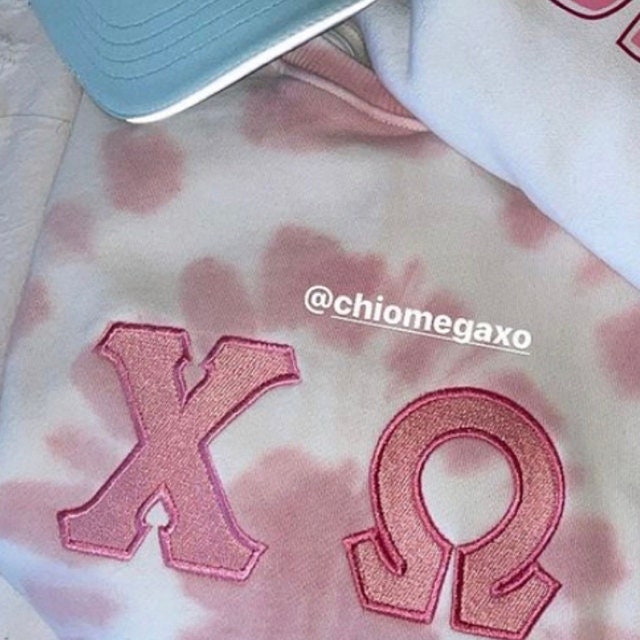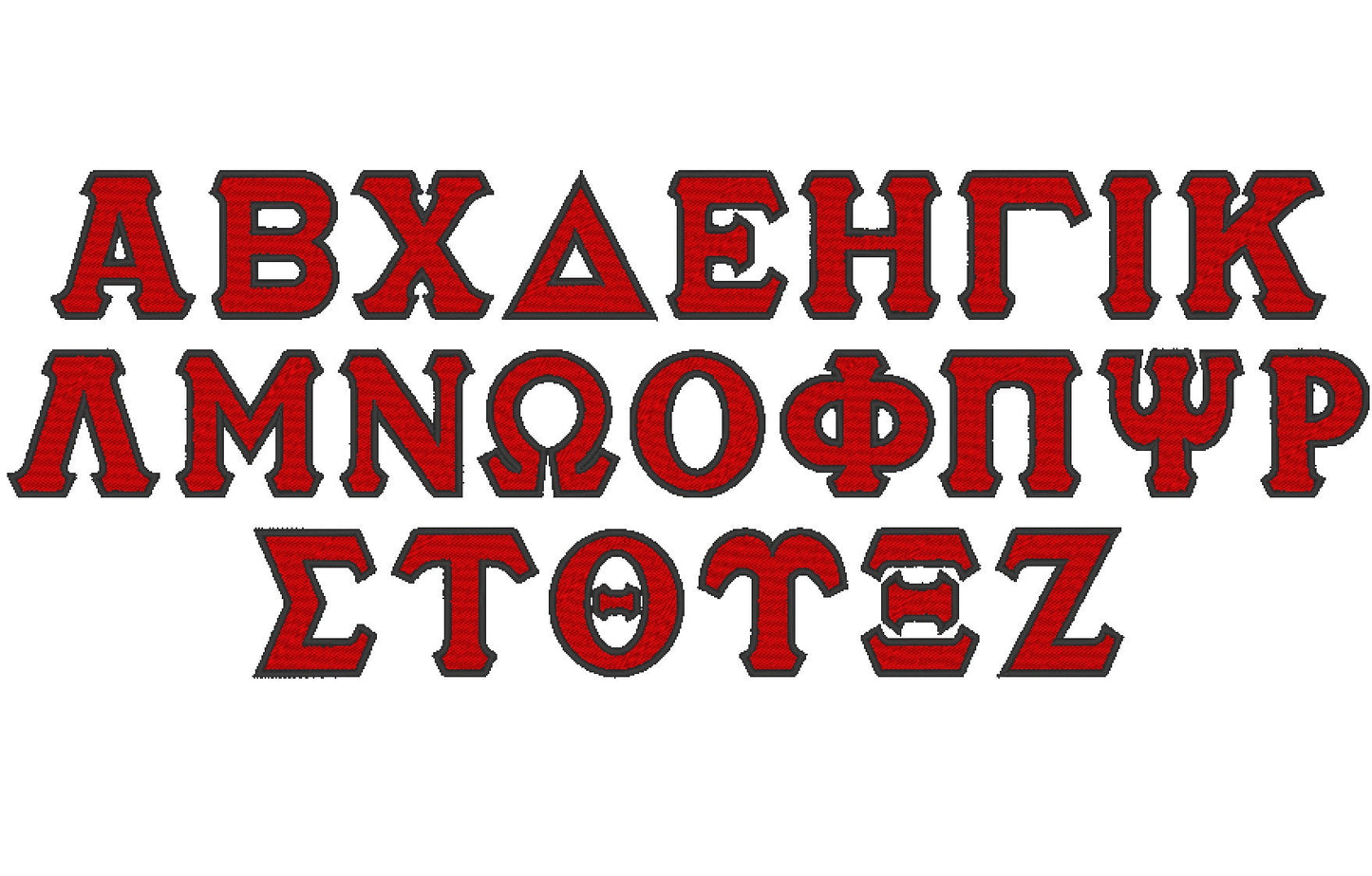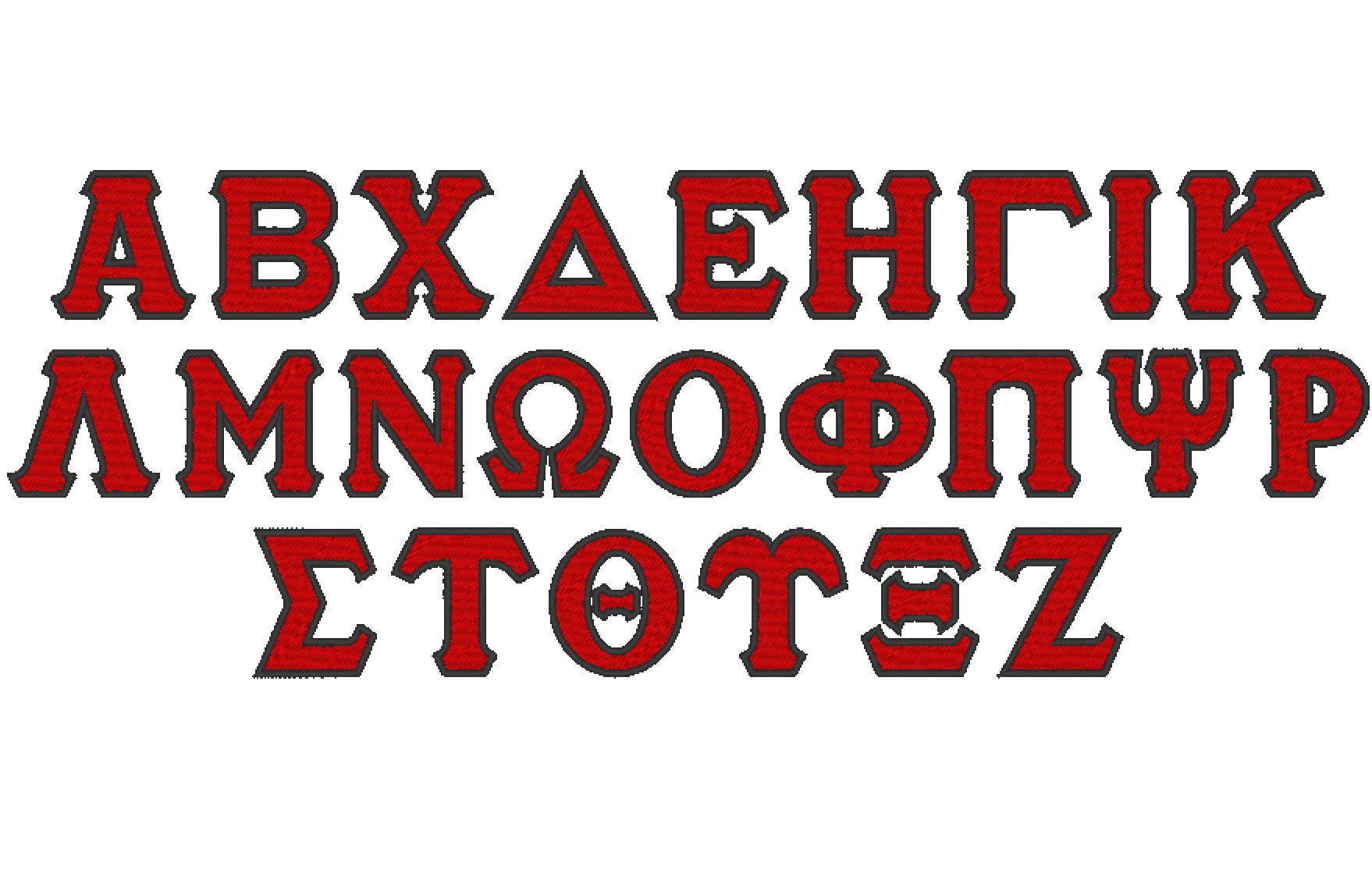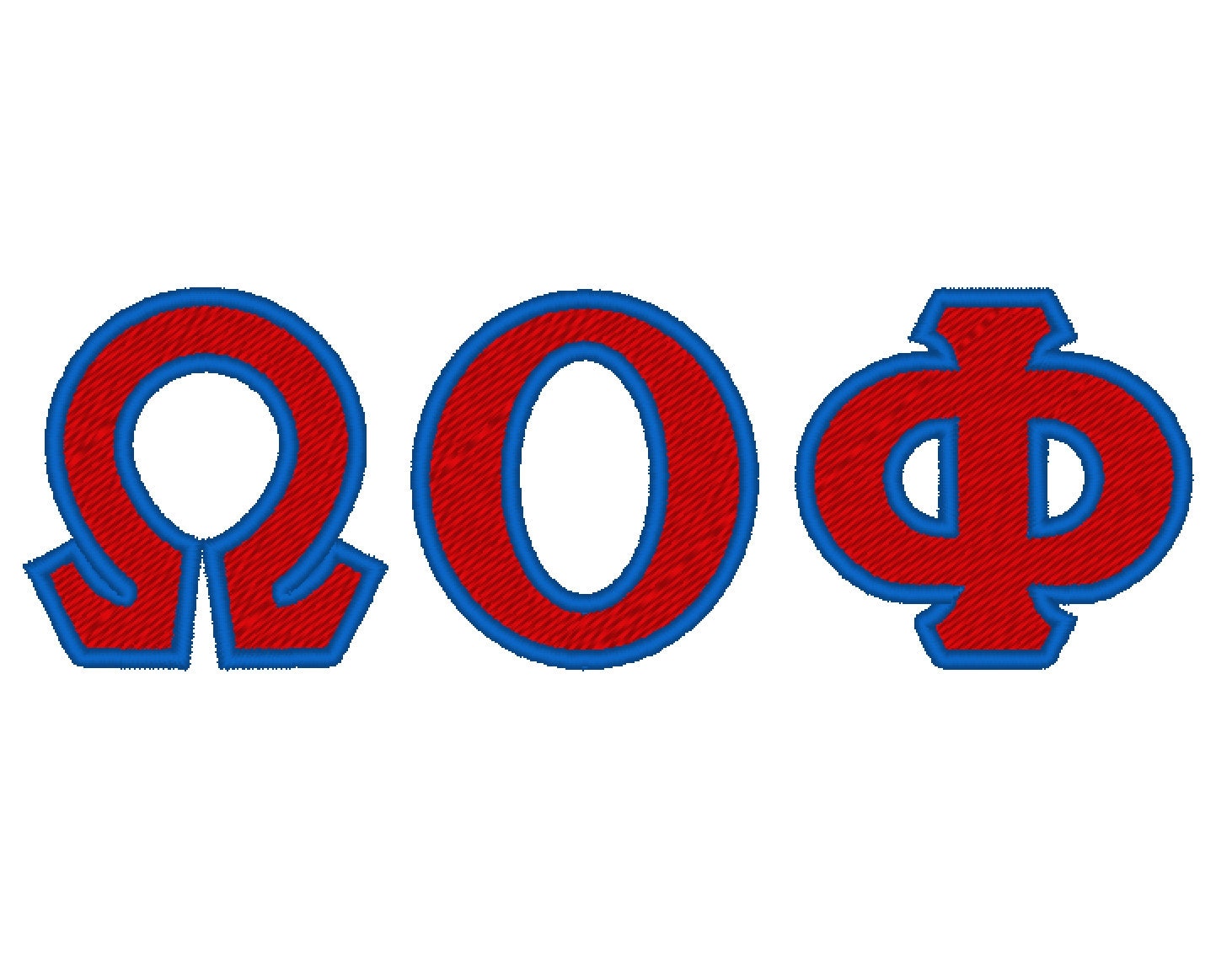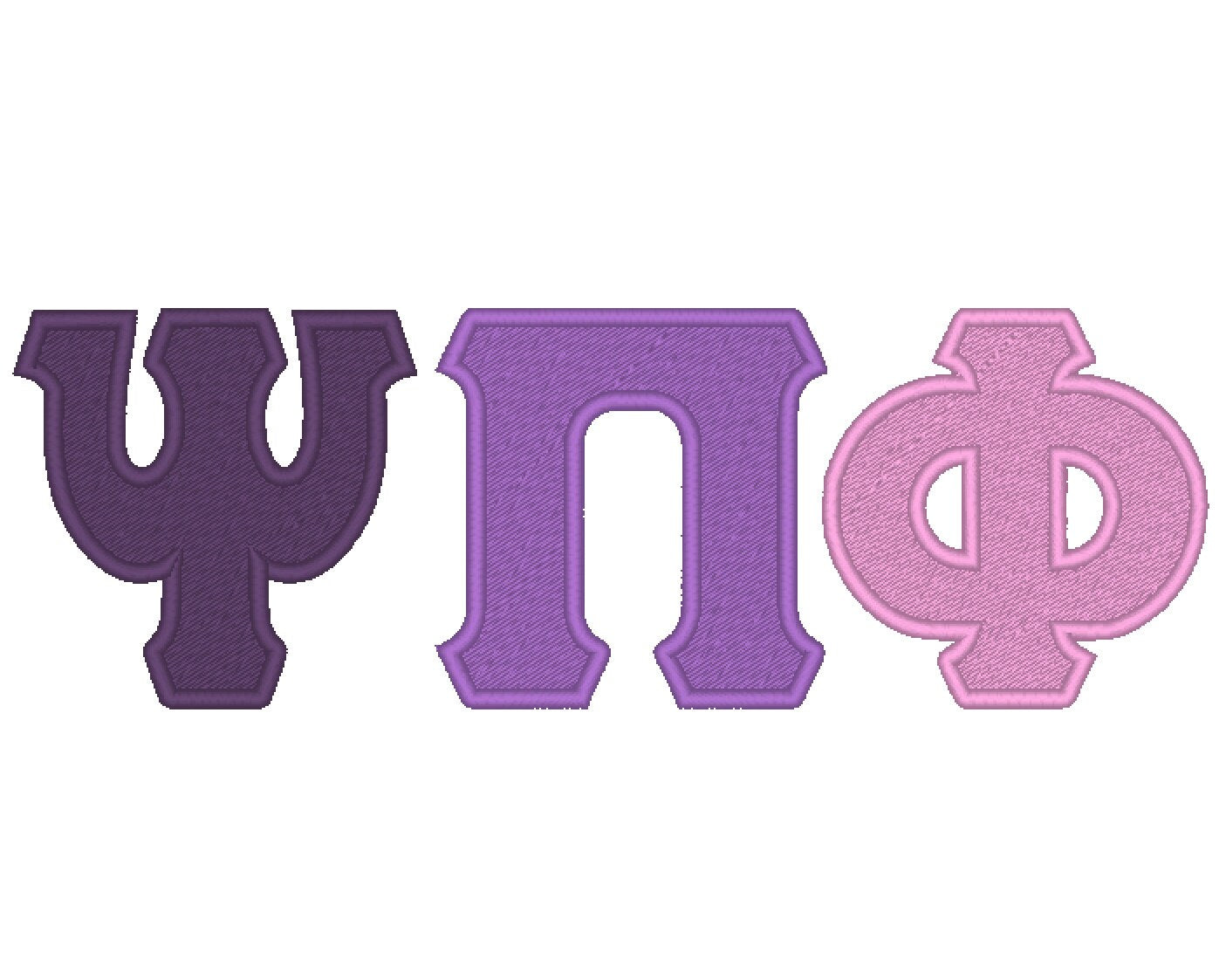
Greek Font Sororities Fill Stitch
A Greek alphabet in two colors, fill stitch with a contrast outline, for sorority and fraternity letters. Great on shirts, jerseys, bags and gifts.
All 24 Greek letters, fill stitched with a second-color finish outline. Letters come in five sizes: 1.5, 2, 3, 3.5 and 4 inches.
• Whole Greek alphabet, 24 fill stitch letters with outline
• 5 sizes, 1.5 to 4 in